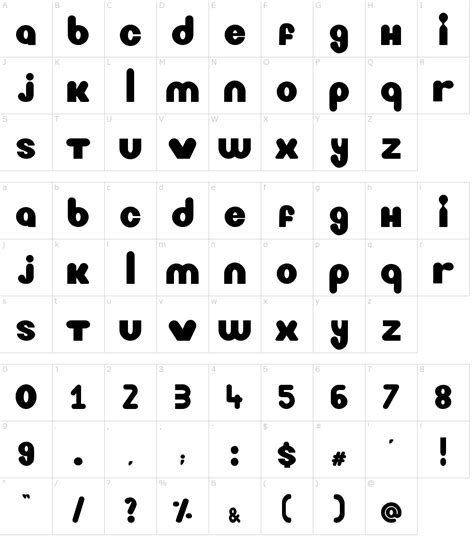
Nickelodeon Font Generator. Easily customize your text with. Click to find the best 17 free fonts in the nickelodeon.
Web choose from a wide range of fonts and add a touch of superhero inspiration with 3d effects in vibrant red and blue colors,. Web use the text generator below to convert your text into graphics online with nickelodeon font, you can then save the image or click. Easily customize your text with. Web vanished from home by fonts on us. Web although the nickelodeon font was originally crafted as a custom design, we’ve identified a similar typeface known as “nickelodeon. Click to find the best 17 free fonts in the nickelodeon.
Web although the nickelodeon font was originally crafted as a custom design, we’ve identified a similar typeface known as “nickelodeon. Web choose from a wide range of fonts and add a touch of superhero inspiration with 3d effects in vibrant red and blue colors,. Easily customize your text with. Click to find the best 17 free fonts in the nickelodeon. Web although the nickelodeon font was originally crafted as a custom design, we’ve identified a similar typeface known as “nickelodeon. Web use the text generator below to convert your text into graphics online with nickelodeon font, you can then save the image or click. Web vanished from home by fonts on us.